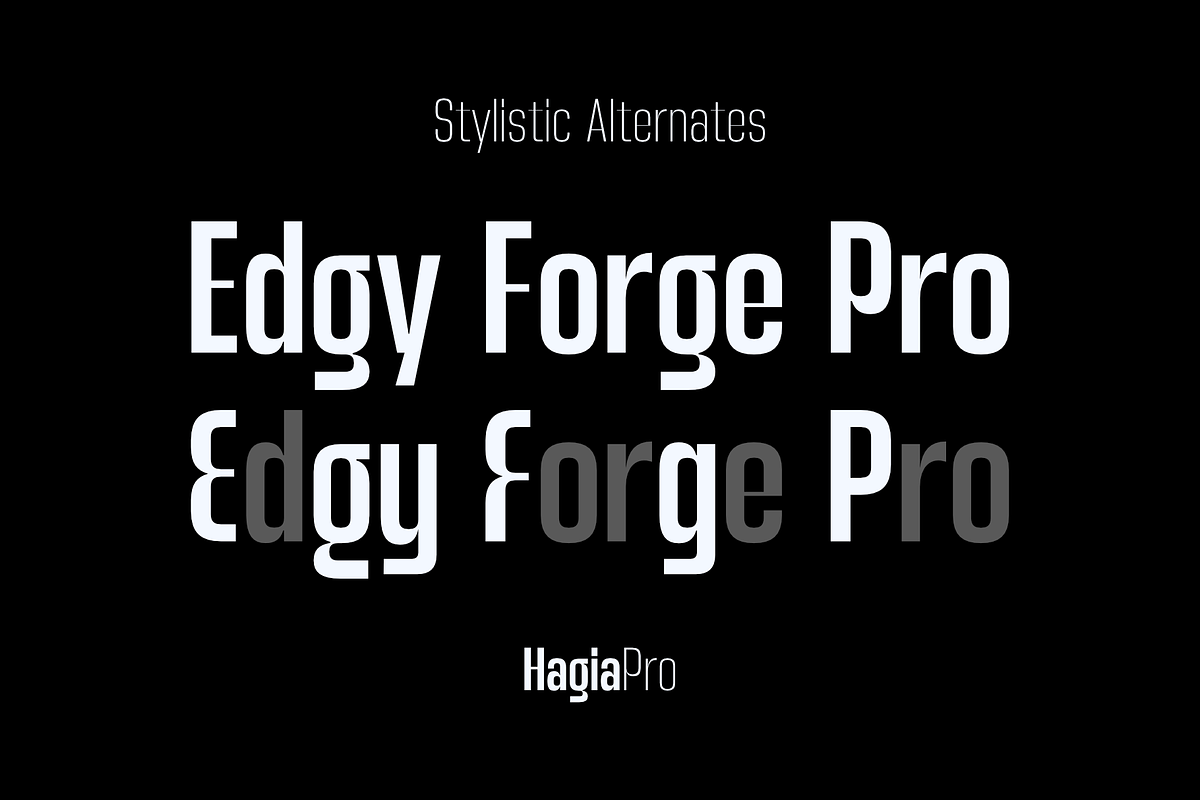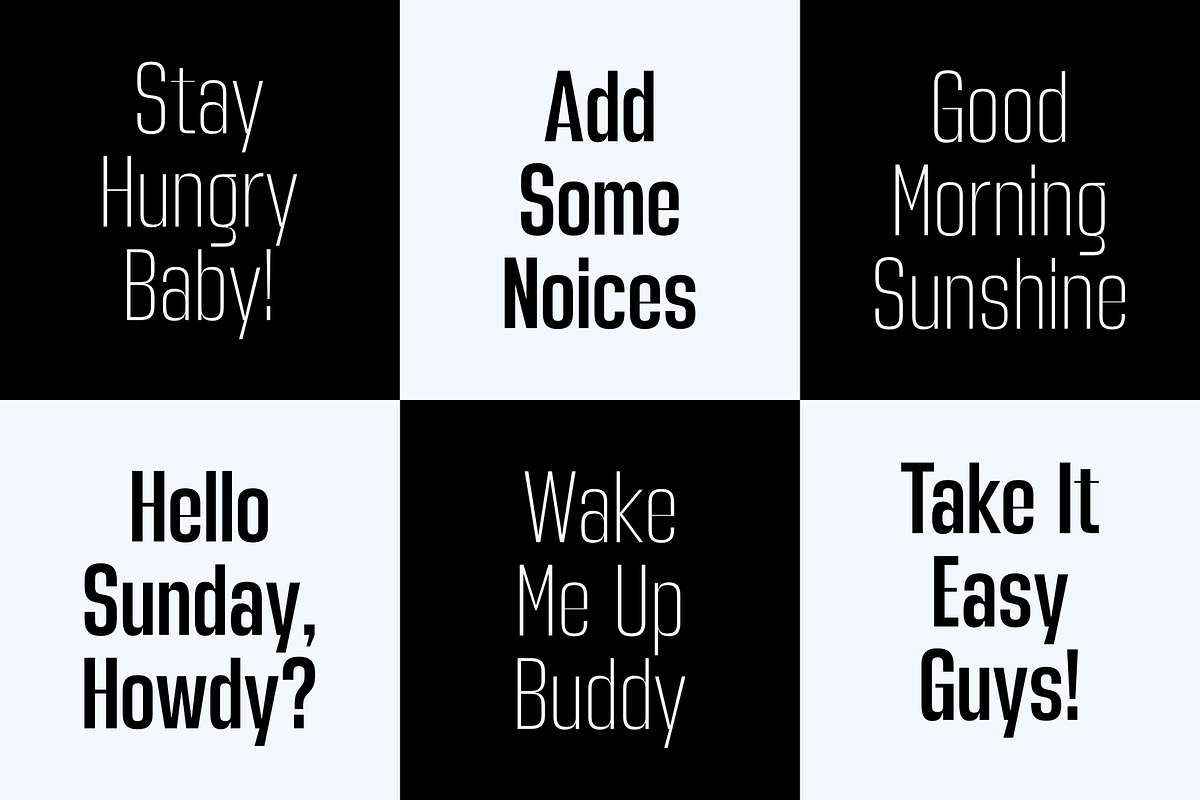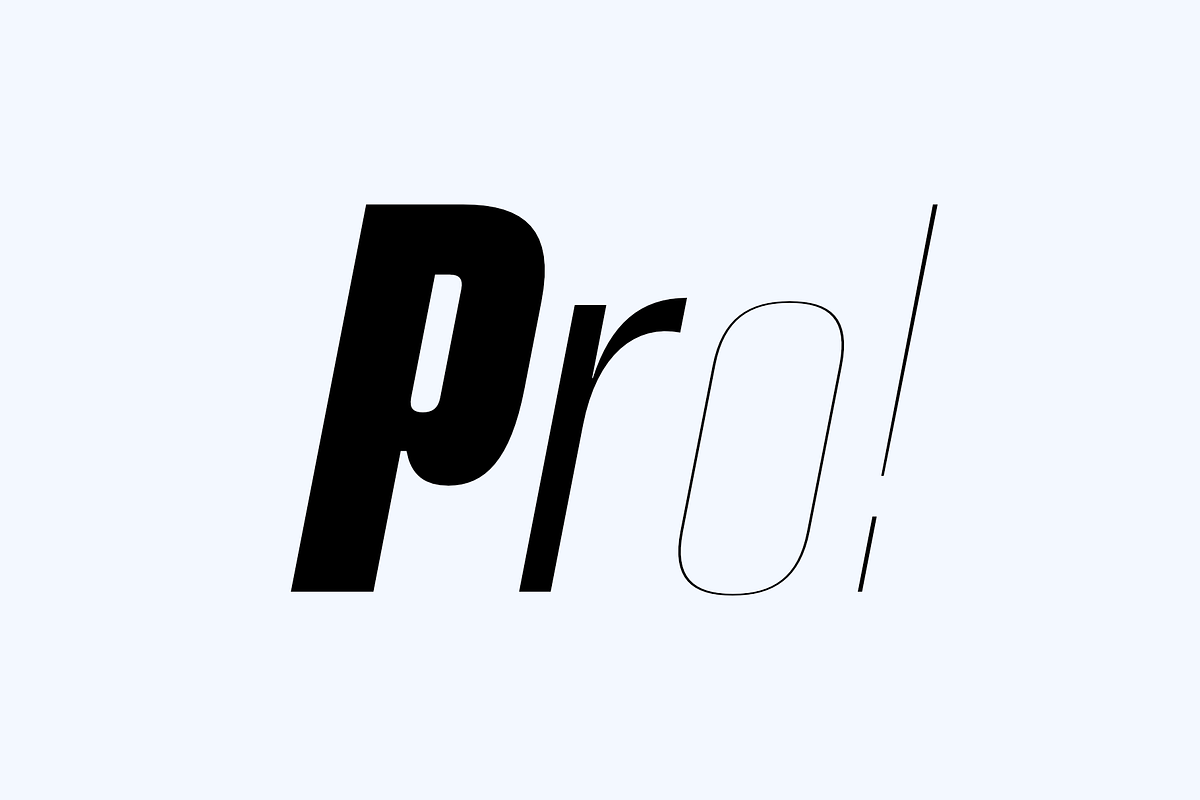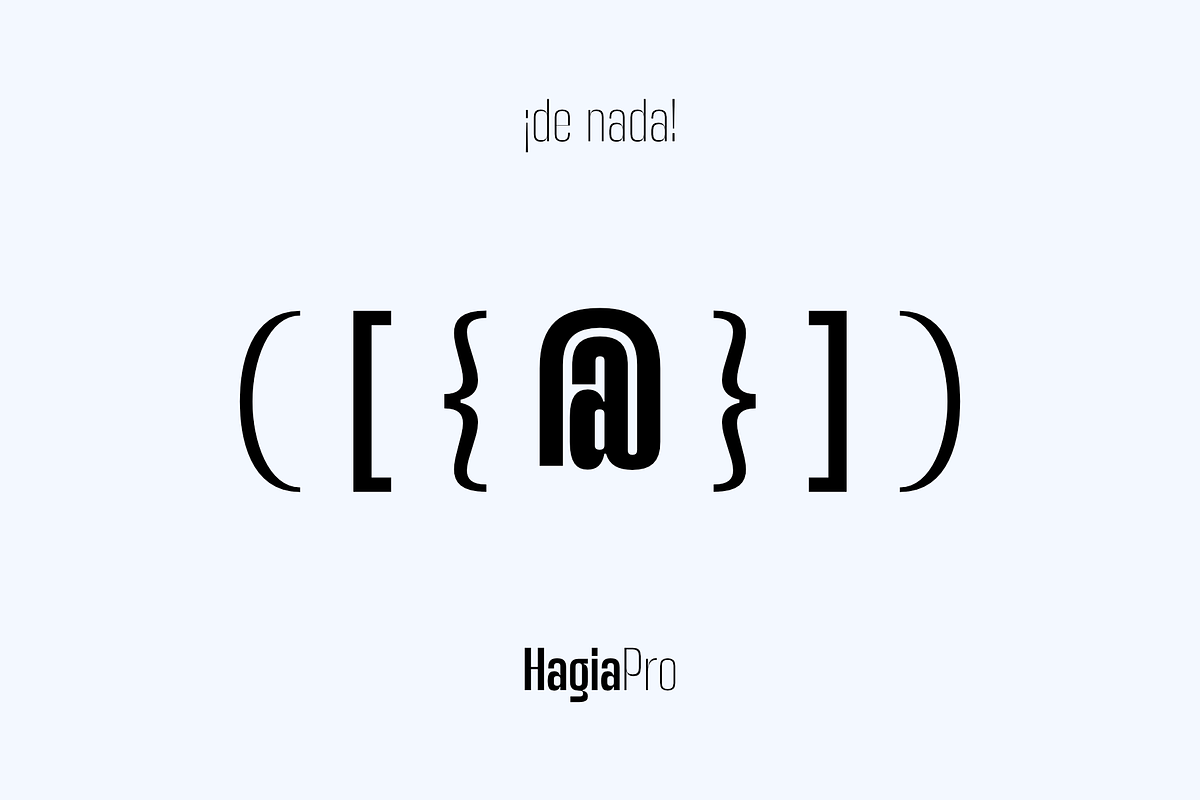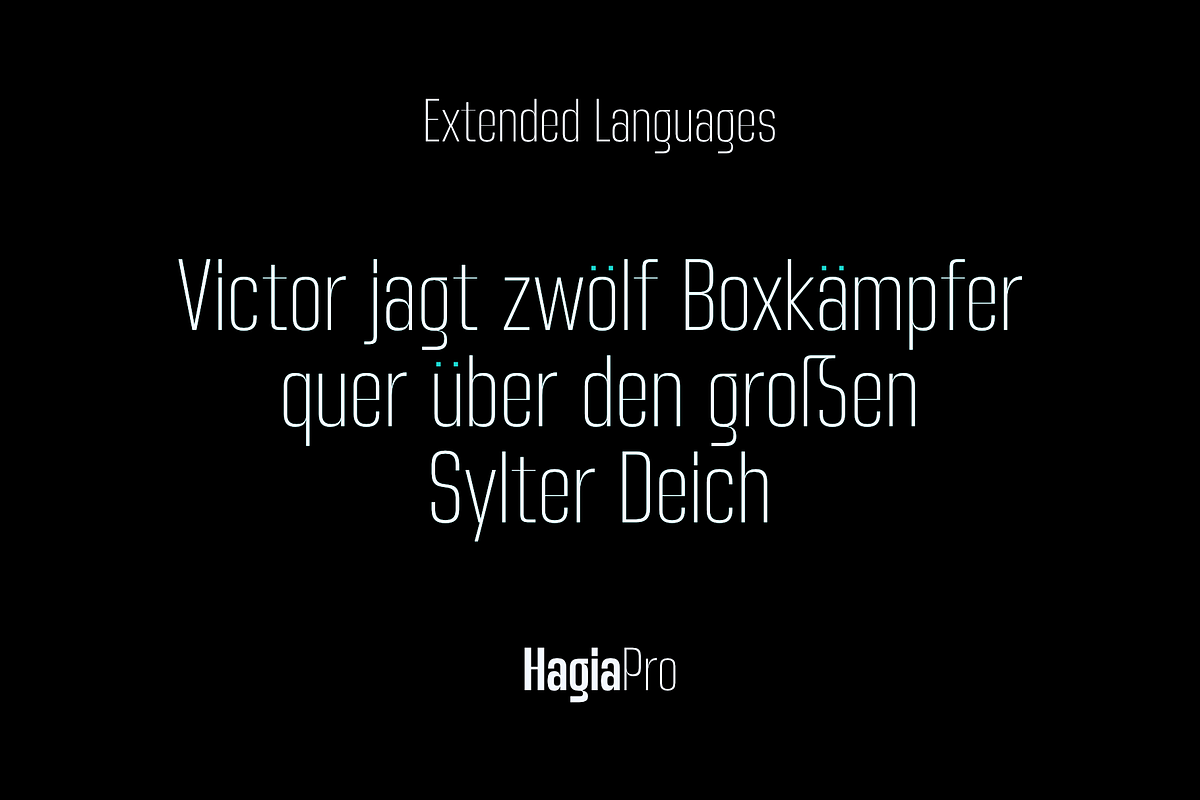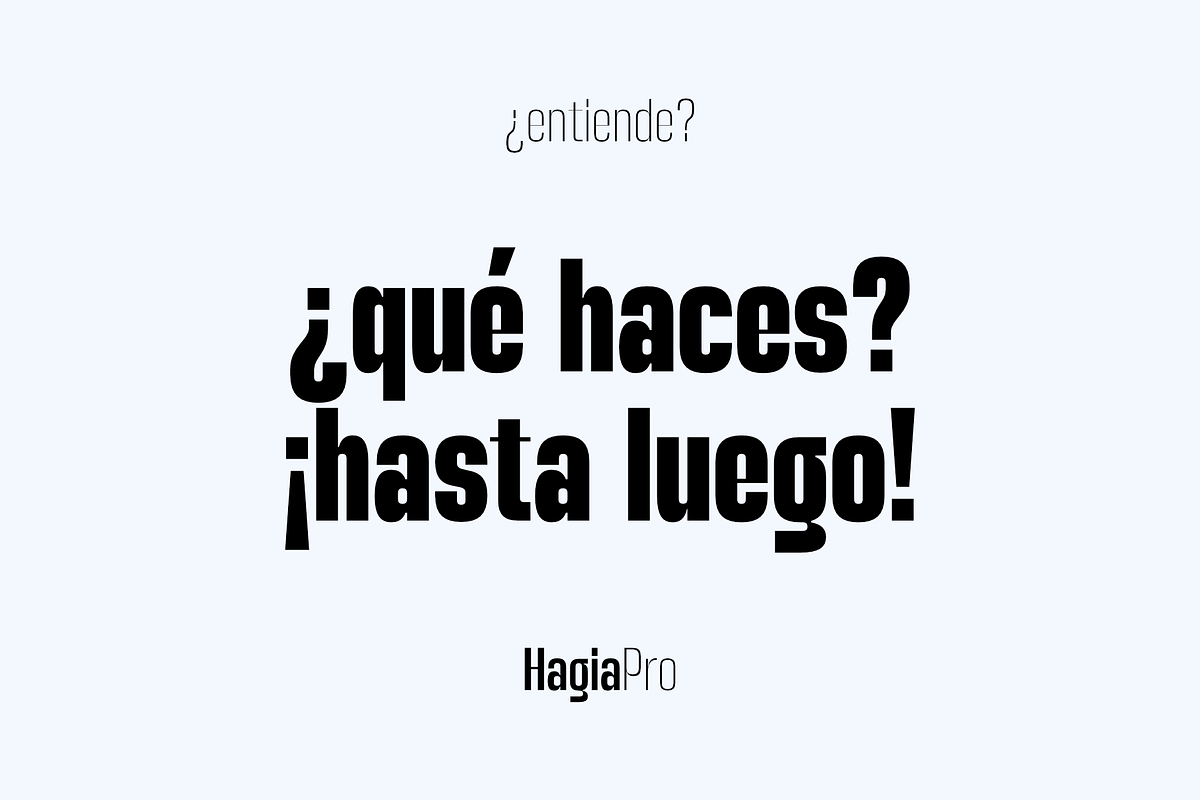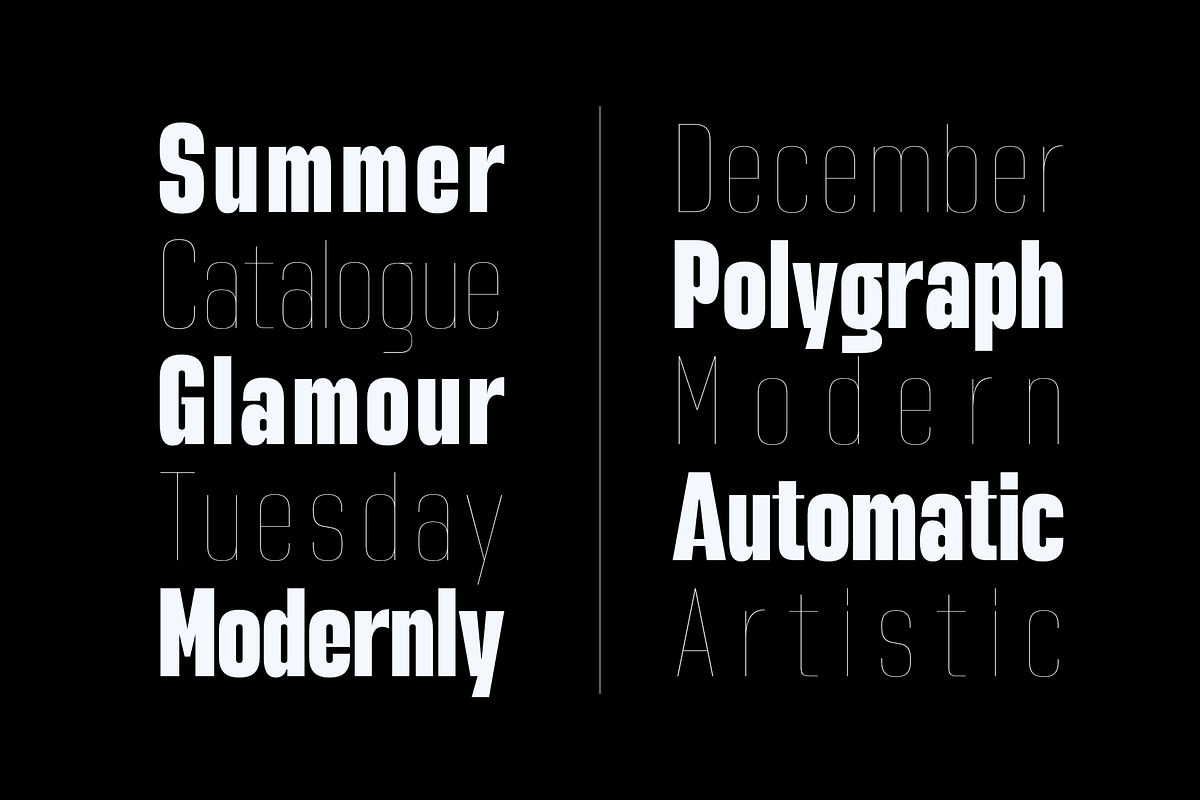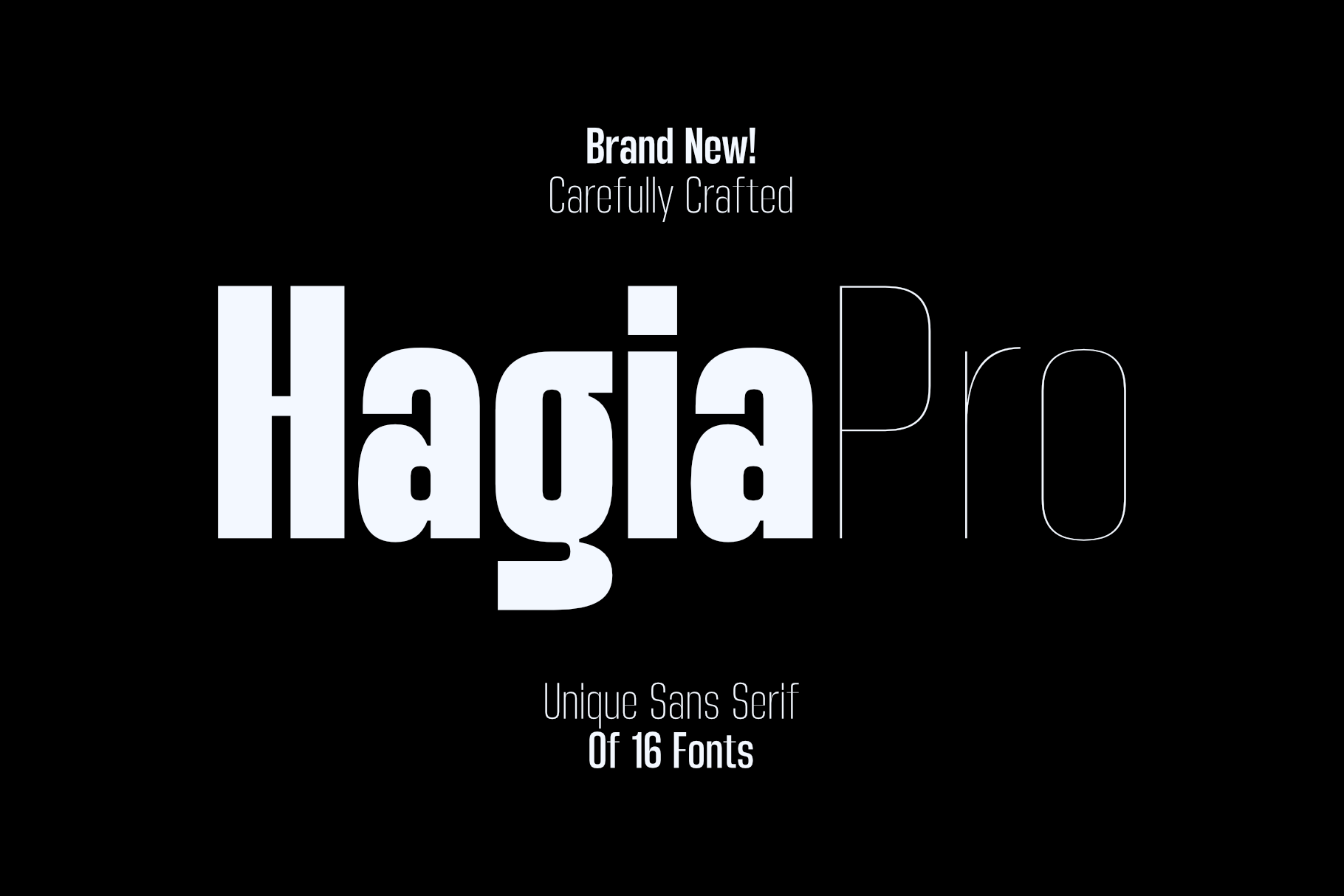
Hagia Pro Modern Vintage Logo Font
Hagia Pro is a modern vintage logo font family that brings timeless elegance and bold personality to your branding. Designed with a perfect balance of luxury and clean minimalism, Hagia Pro is made for high-end logos, fashion-forward brands, and dreamy wedding designs. Its geometric yet graceful curves give off a modern vibe, while subtle retro touches add that classic vintage charm.
From upscale fashion labels to luxurious editorial layouts, Hagia Pro delivers refined fonts that make your design stand out—whether you're working on a creative logo, a chic brand, or elegant event branding. With its bold yet soft sans serif style, this typeface family is perfect for projects that demand both sophistication and edge.
If you’re looking for a font that’s equal parts elegant, minimal, and strikingly modern, Hagia Pro is the perfect fit.